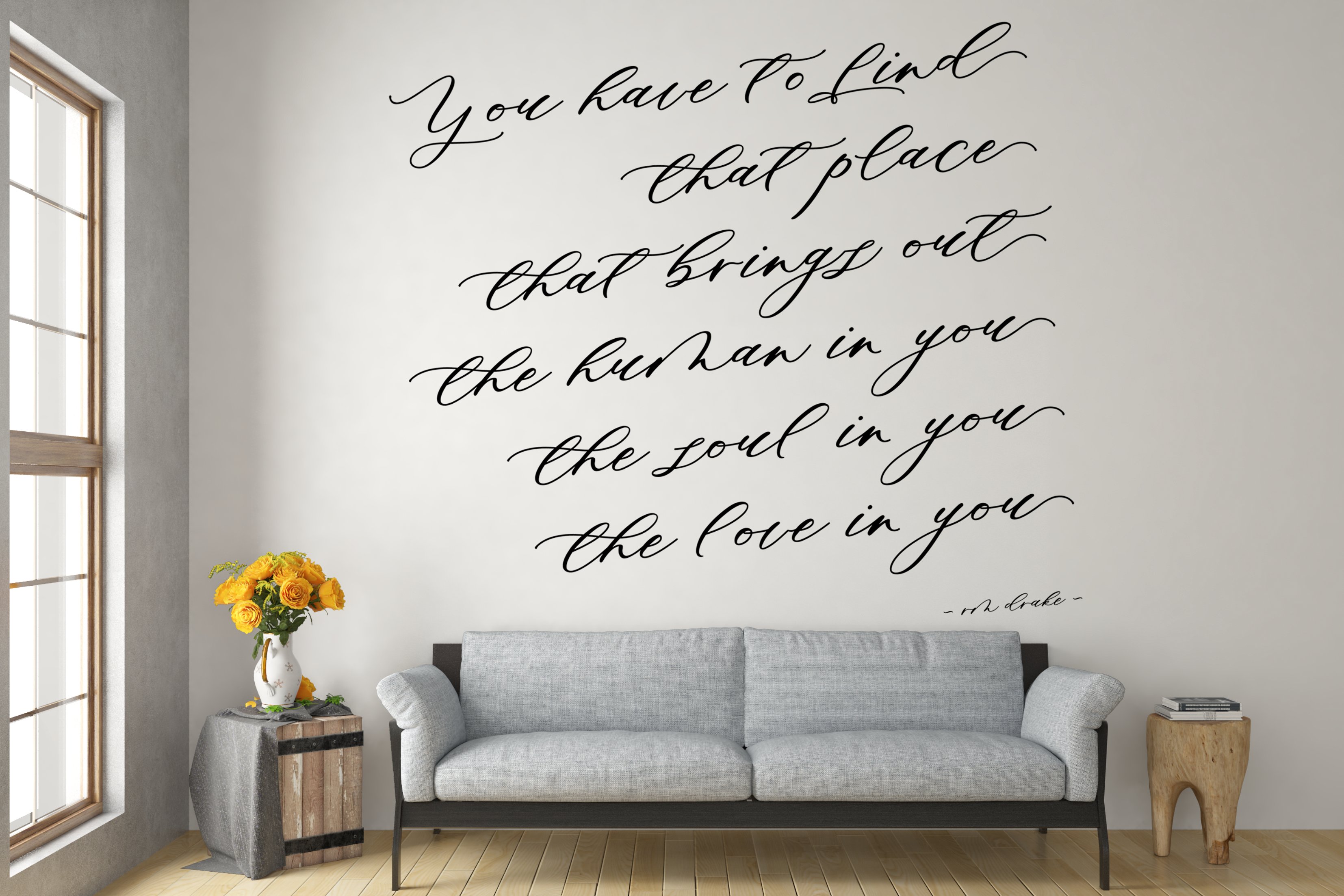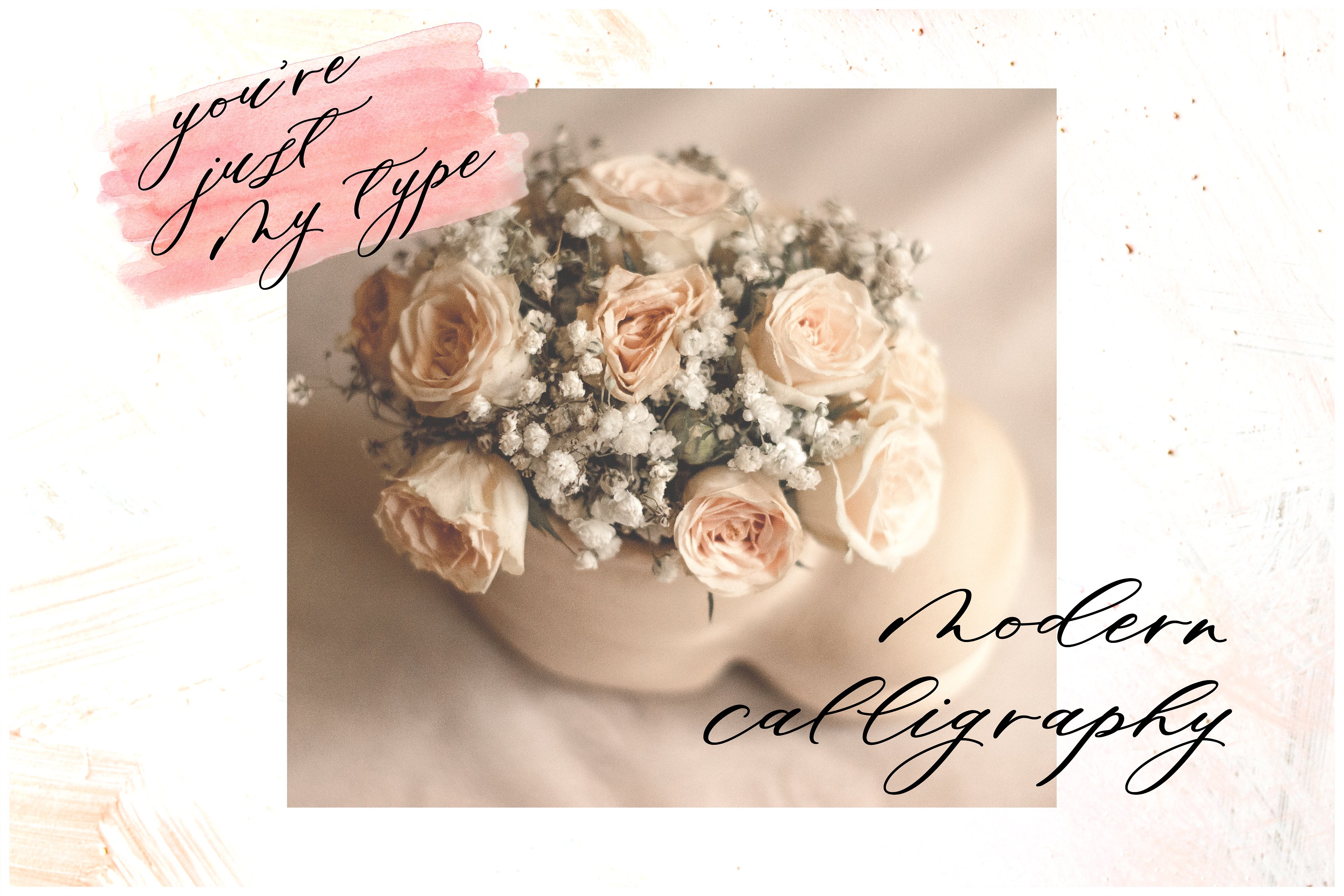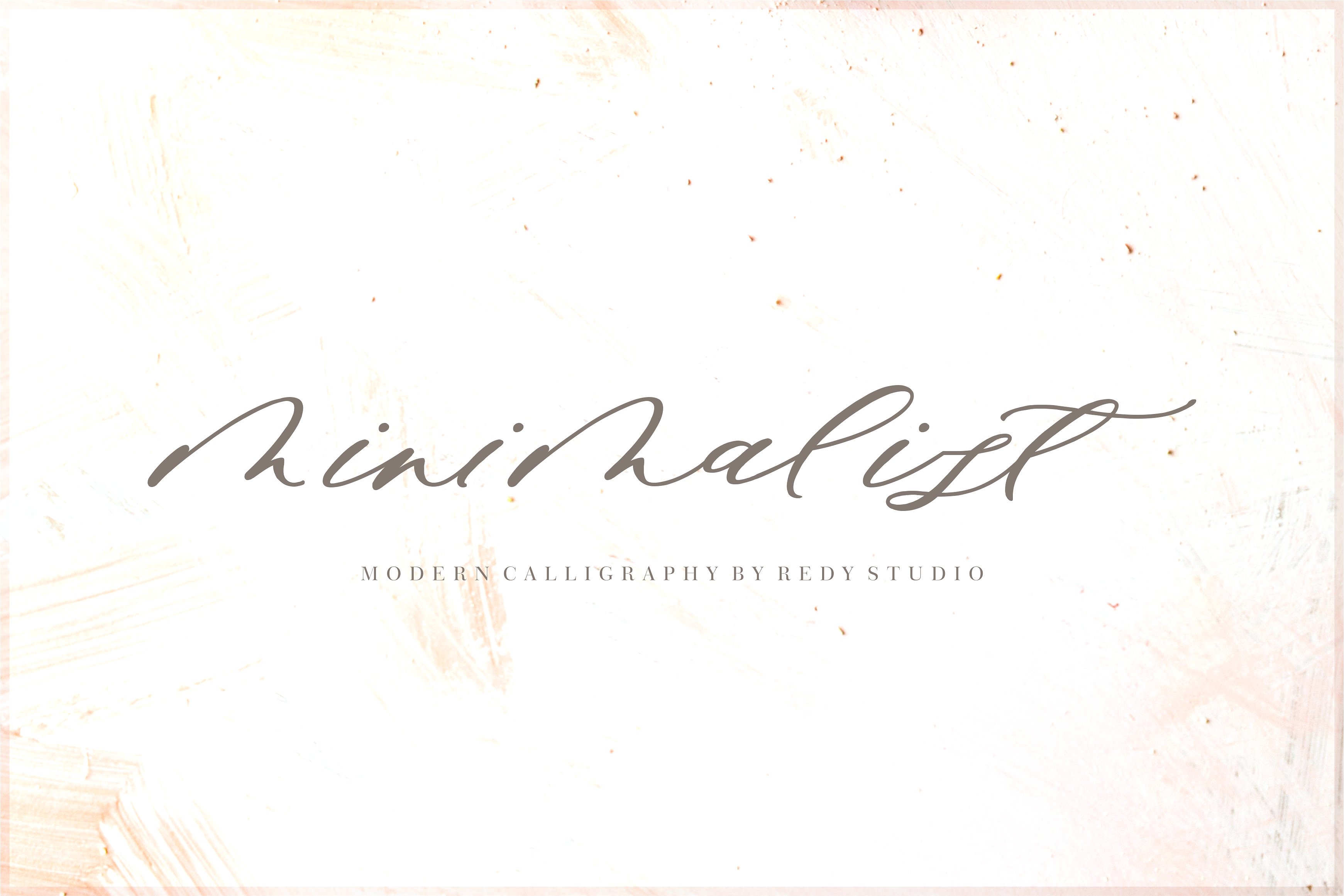
Second Of March Font
Second of March Script Font is a whimsical script font with a relaxed theme, featuring a lovely style. No matter the topic, this font will be an incredible asset to your fonts’ library, as it has the potential to elevate any creation.